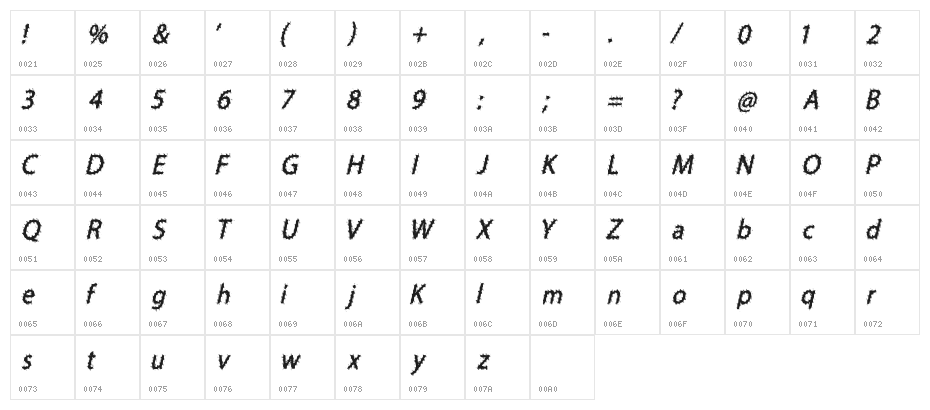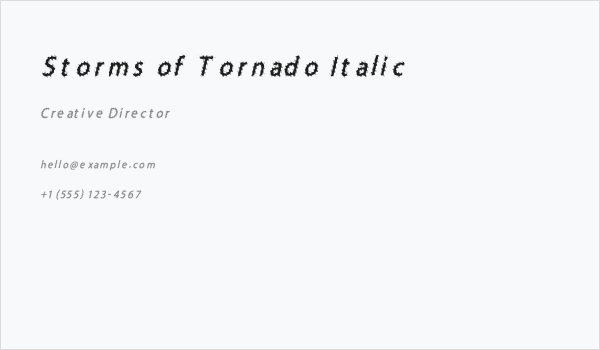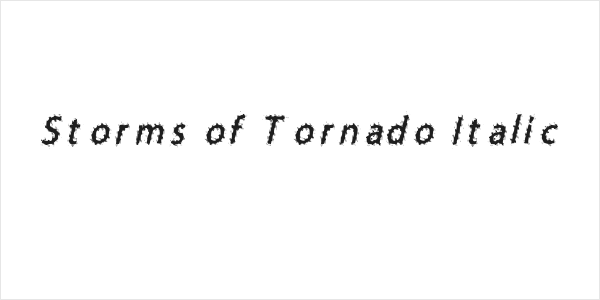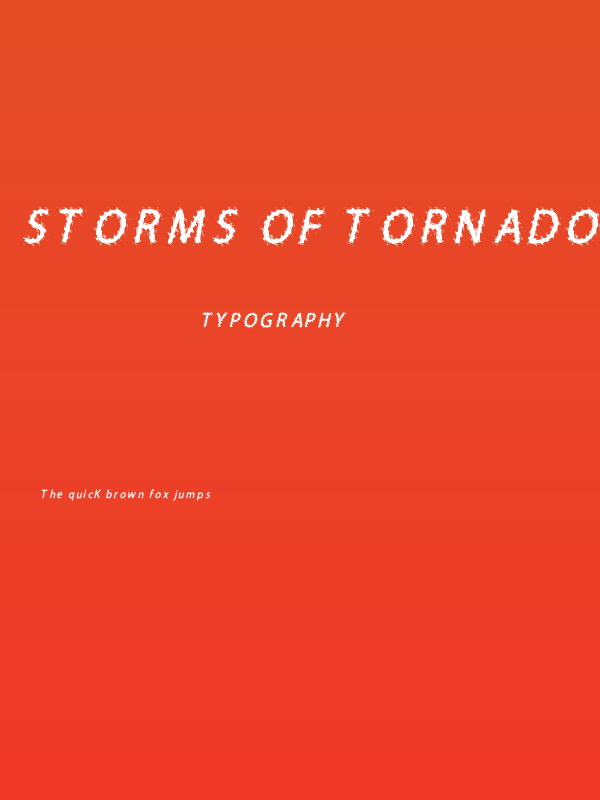
Storms of Tornado Italic Font
Storms of Tornado Italic Description
This font features a dynamic and energetic style, characterized by its italicized and slightly distorted letterforms. The edges are rough and jagged, giving it a stormy, chaotic appearance. Each character leans forward, enhancing the sense of movement and urgency. The uppercase and lowercase letters maintain consistent height and proportion, while the numbers and special characters follow the same stylistic cues. The overall effect is both bold and expressive, making it suitable for attention-grabbing designs.
| Proposed Projects | Ideal for projects that require a bold and energetic look, such as event posters, album covers, or branding for extreme sports. |